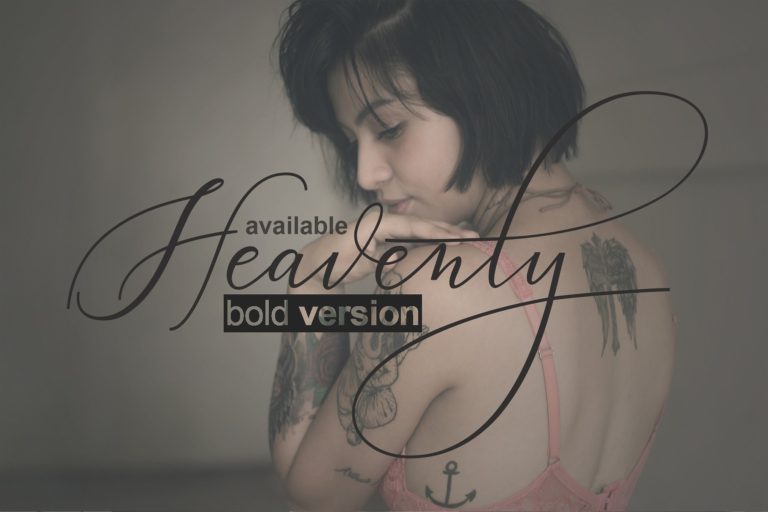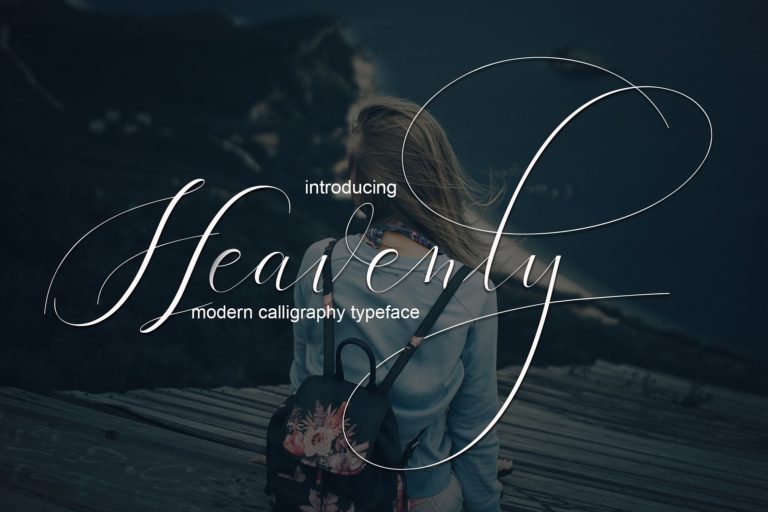
Heavenly Calligraphy
Heavenly Calligraphy Font
Heavenly Script is a modern calligraphic font with a very cool handwriting style, this font is perfect for your various design needs such as branding, wedding invitations, magazines, mugs, business cards, posters, and more.